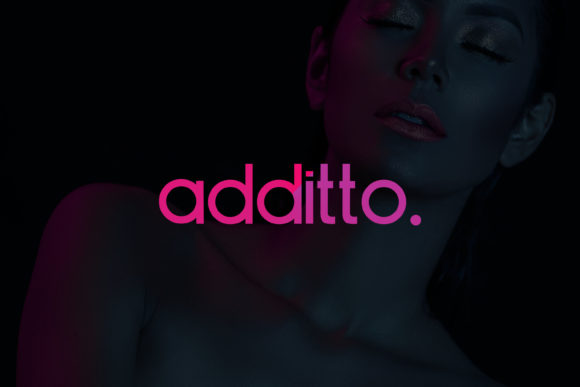
Unleash the visual symphony of Additto, a modern sans serif font that dances between timeless elegance and contemporary charm. Its clean, minimalistic strokes evoke a sense of order and clarity, while its subtly rounded edges hint at a touch of playful sophistication. As a visual chameleon, Additto seamlessly blends into any backdrop, be it the crisp lines of a corporate presentation or the whimsical swirls of a personal journal.
Step into a world of boundless creativity as you explore the versatility of Additto. Effortlessly adorn your designs with its graceful simplicity or let it take center stage with its commanding presence. From the delicate curves of a wedding invitation to the bold headlines of a marketing campaign, Additto effortlessly elevates your message, transforming it into an unforgettable visual masterpiece.
Experience the joy of seamless navigation as Additto's intuitive structure guides you effortlessly through your creative journey. Whether you're a seasoned design maestro or a budding enthusiast, Additto becomes an extension of your imagination, allowing your ideas to flow freely onto the screen. Its carefully crafted curves and angles ensure effortless legibility, ensuring your words dance across the page with clarity and grace.
Immerse yourself in the creative possibilities as Additto becomes your artistic muse. Its inherent elegance lends a touch of sophistication to any project, while its adaptability allows it to effortlessly mold itself to your unique vision. Whether you're crafting a heartfelt letter, designing a captivating poster, or weaving the threads of a digital tapestry, Additto becomes your trusted companion, bringing your creative dreams to life.